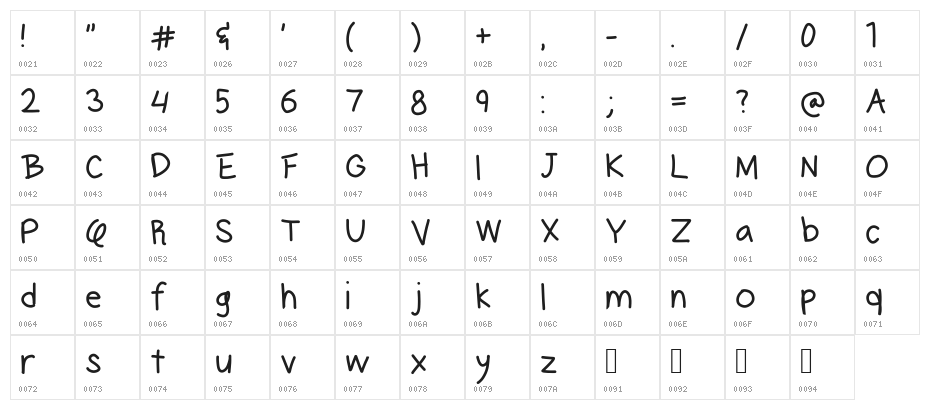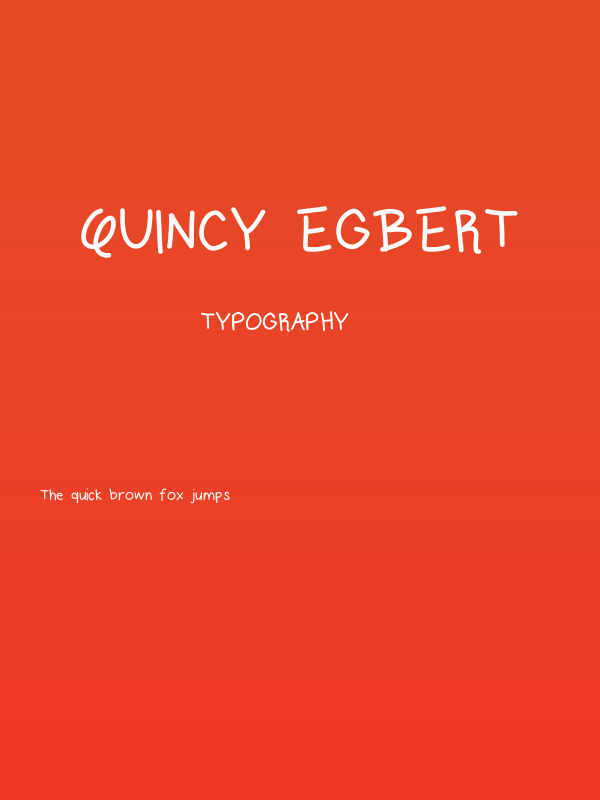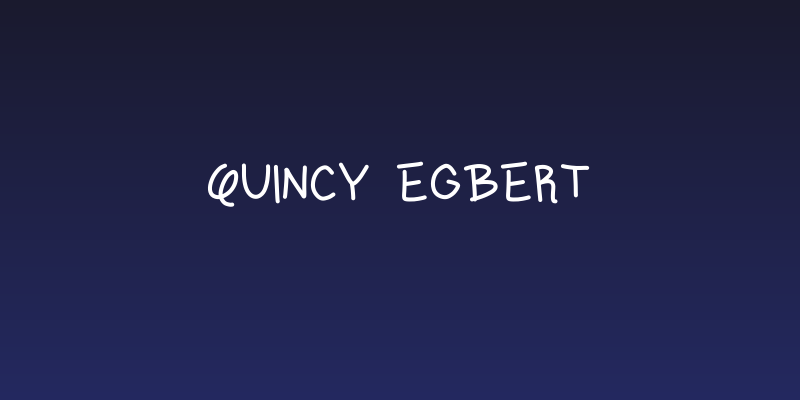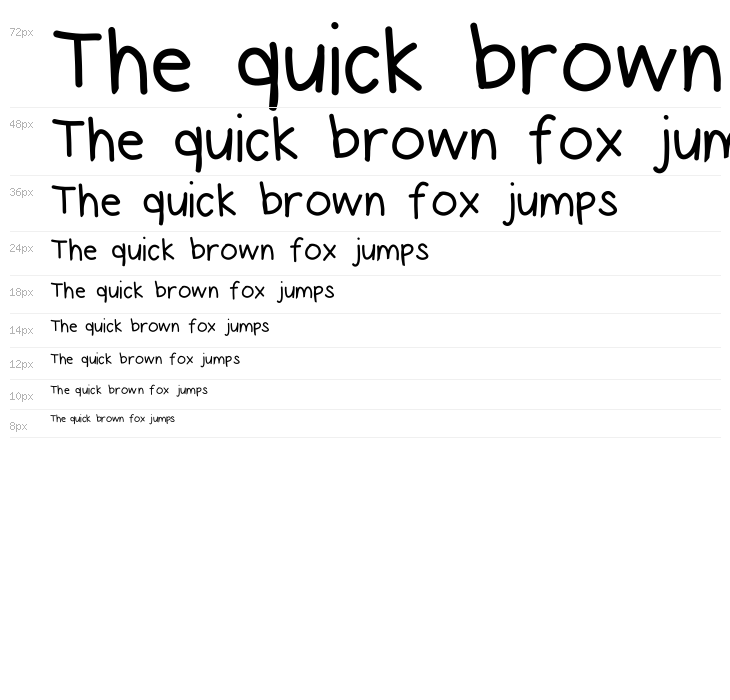
Quincy Egbert Font
Quincy Egbert Description
This playful and informal font features a handwritten style with a casual, friendly appearance. The letters are slightly uneven, giving it a natural, organic feel. The strokes are consistent in thickness, providing a uniform look across all characters. The font includes both uppercase and lowercase letters, numerals, and a variety of special characters, making it versatile for different uses. Its rounded edges and smooth curves contribute to its approachable and warm aesthetic, making it suitable for projects that require a personal touch.
Overall StyleCasual
Use CaseHeadlines, Informal text, Personal projects
Proposed ProjectsIdeal for greeting cards, children's books, personal blogs, and informal branding.